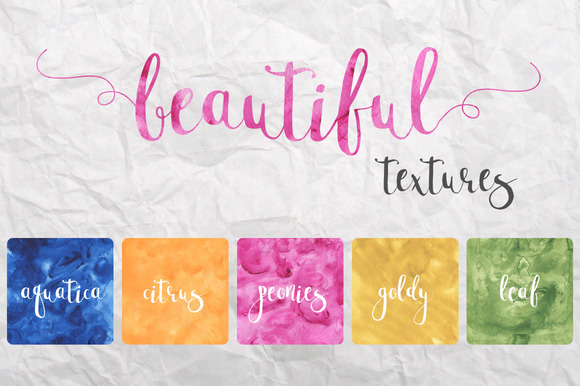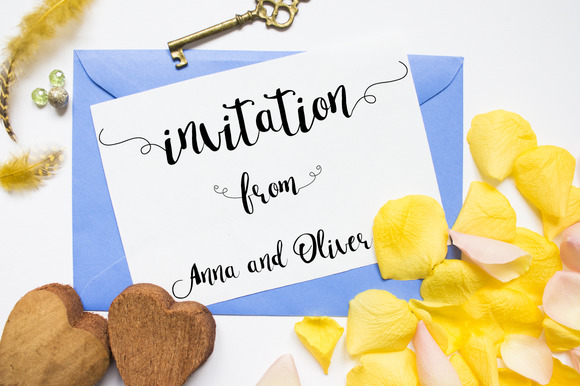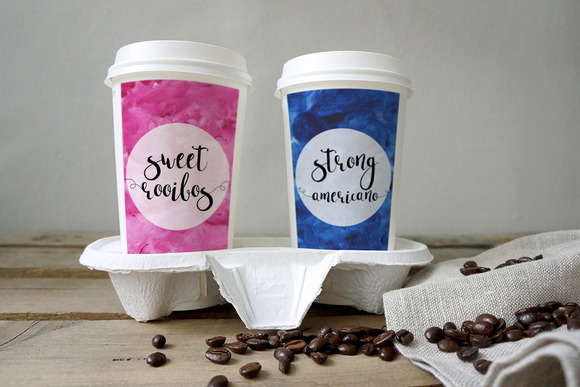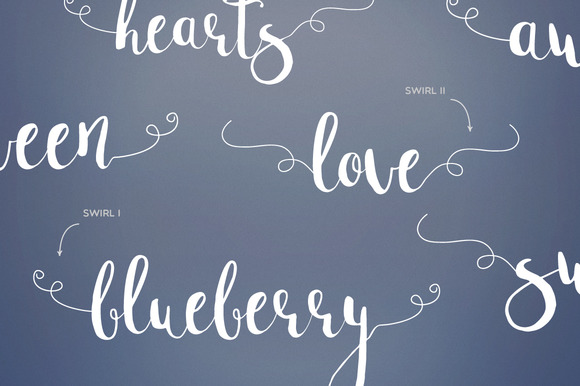
Bristol Font
About Bristol Font
“Bristol” is a elegant handwritten script font and  can be used for various purposes such as wedding invitations, posters, labels, logo’s book covers, branding projects, signatures, name cards and much more!